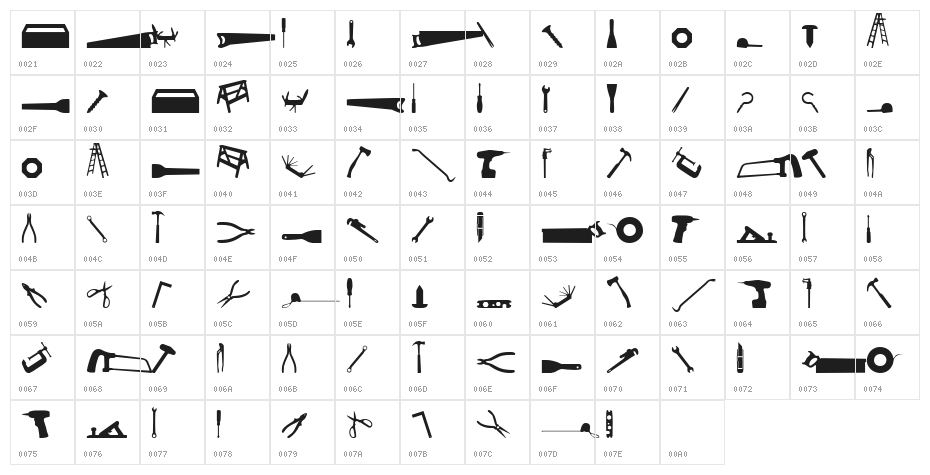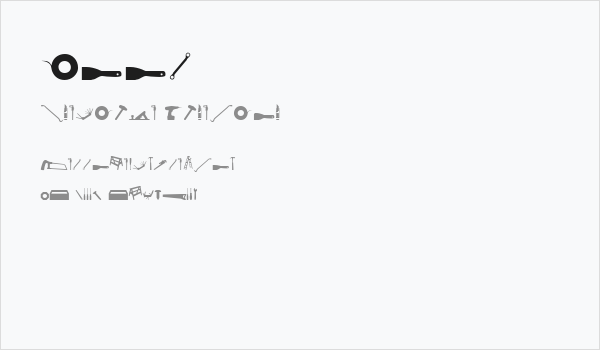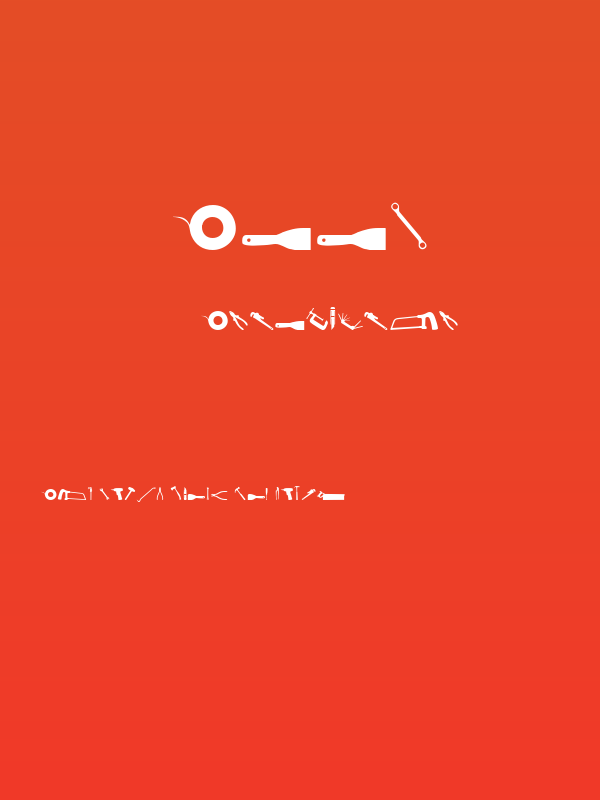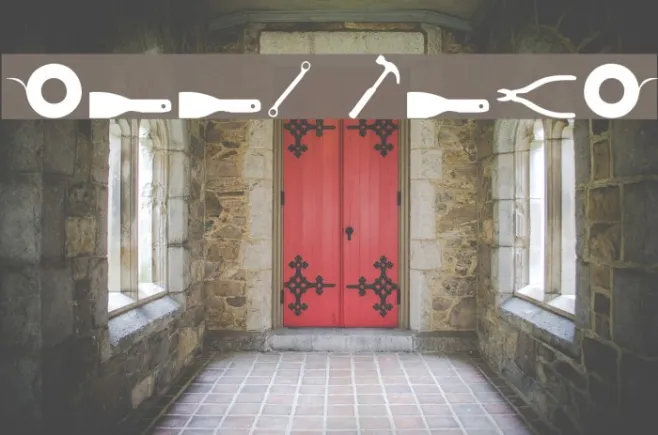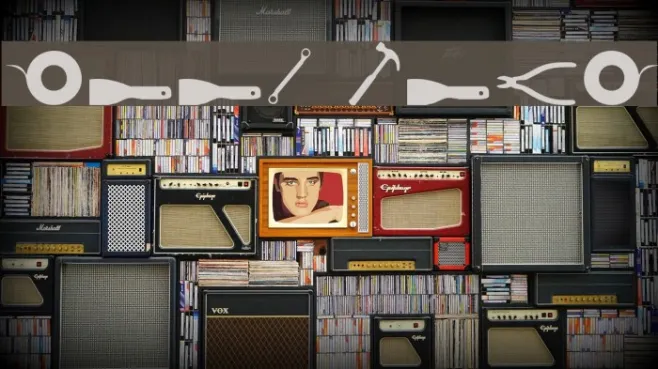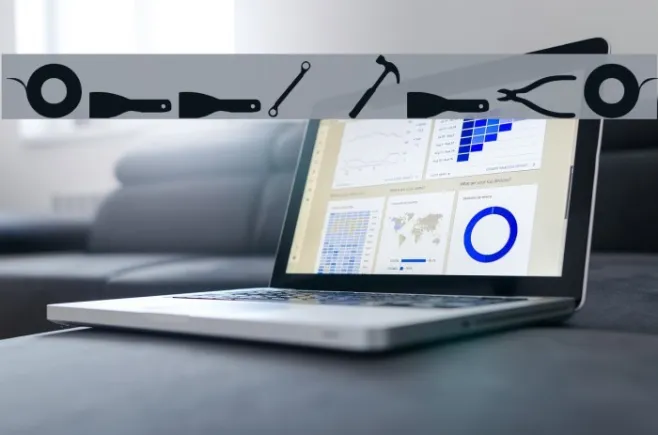
Tool Font
Tool Description
A playful decorative font where each character is represented by a silhouette of a hand tool or workshop equipment, creating a unique and thematic visual style. The glyphs are bold, solid, and highly pictorial, making each letter or number easily identifiable as a tool rather than a traditional typographic form.
| Overall Style | Decorative, Playful, Thematic |
| Use Case | Headlines, Logos, Posters, Themed Graphics |
| Proposed Projects | Posters for hardware stores, DIY event flyers, children's educational materials, themed signage, branding for construction or repair businesses. |